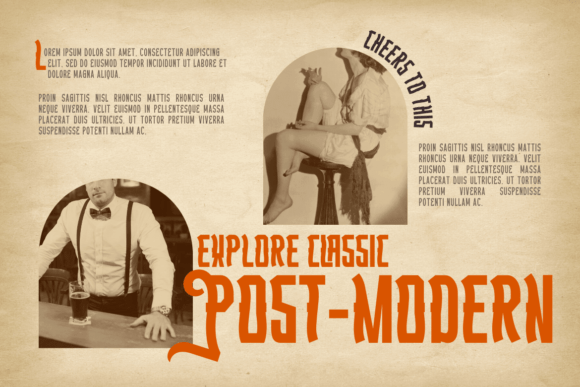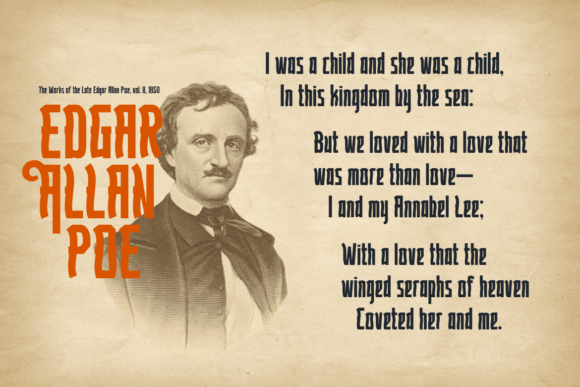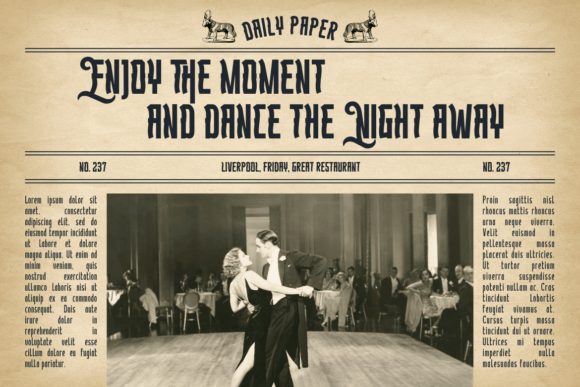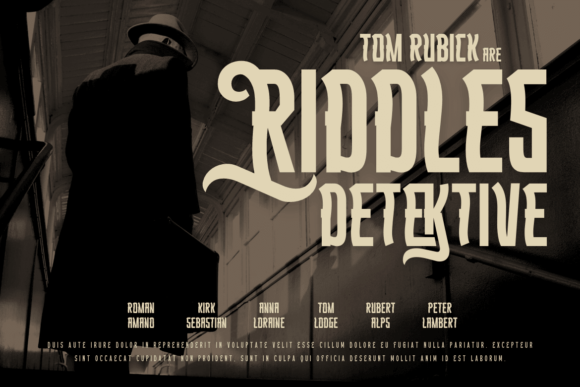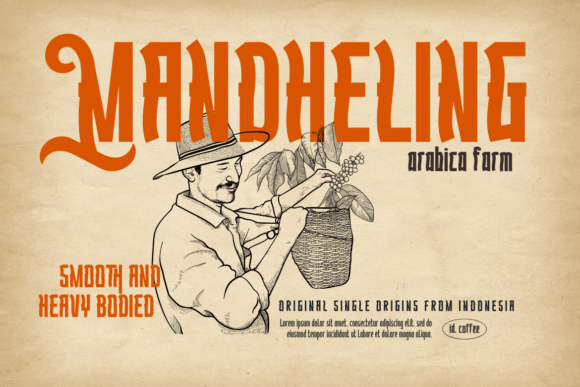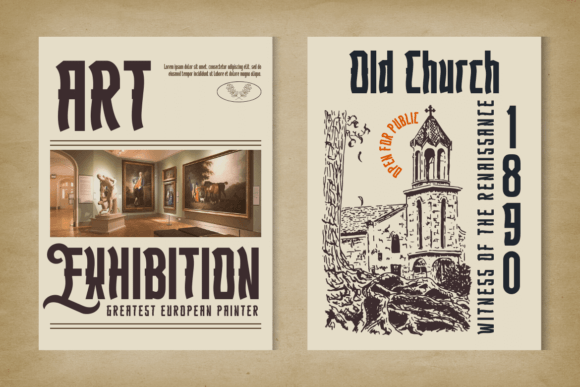
Introducing Fagumeh Font: Add a Touch of Vintage Charm to Your Designs
Are you tired of using the same old fonts in your design projects? Look no further than Fagumeh, a retro condensed font that’s sure to add a touch of vintage charm to your creations. With its unique and high form, Fagumeh is perfect for a wide range of design themes, from posters and packaging to logos and branding materials.
A Unique and Versatile Font
Fagumeh’s condensed design makes it ideal for use in a variety of contexts, from headlines and titles to body text and captions. Its stylistic sets and alternate characters offer a playful and distinct touch, allowing you to customize your text to suit your design needs. Whether you’re looking to create a bold and eye-catching statement or a more subtle and sophisticated look, Fagumeh has got you covered.
Playful and Distinctive Features
One of the standout features of Fagumeh is its unique ligatures, which add an extra touch of character to your text. Ligatures are special characters that combine two or more letters into a single glyph, creating a distinctive and eye-catching effect. Fagumeh’s ligatures are carefully crafted to add a playful and whimsical touch to your designs, making them perfect for use in creative projects such as posters, flyers, and social media graphics.
Stylistic Sets and Alternate Characters
In addition to its ligatures, Fagumeh also features a range of stylistic sets and alternate characters. These allow you to customize your text to suit your design needs, from changing the style of your letters to adding special characters and ornaments. With Fagumeh, you can create a unique and distinctive look that’s all your own.
Perfect for Vintage-Inspired Designs
Fagumeh’s vintage-inspired design makes it perfect for use in retro-themed projects. Whether you’re creating a poster for a vintage-inspired event or designing a logo for a brand that wants to evoke a sense of nostalgia, Fagumeh is the perfect choice. Its condensed design and stylistic sets make it ideal for use in headlines and titles, while its ligatures and alternate characters add a playful and distinctive touch.
Versatility and Legibility
One of the key benefits of Fagumeh is its versatility and legibility. Despite its condensed design, Fagumeh remains clear and easy to read, even at small sizes. This makes it perfect for use in a wide range of design projects, from business cards and brochures to posters and billboards.
Tips for Using Fagumeh in Your Designs
Here are a few tips for using Fagumeh in your designs:
- Use Fagumeh in headlines and titles to add a touch of vintage charm to your designs.
- Experiment with Fagumeh’s stylistic sets and alternate characters to create a unique and distinctive look.
- Use Fagumeh’s ligatures to add a playful and whimsical touch to your text.
- Pair Fagumeh with other fonts to create a bold and eye-catching contrast.
In conclusion, Fagumeh is a versatile and stylish font that’s perfect for adding a touch of vintage charm to your design projects. With its unique and high form, stylistic sets and alternate characters, and ligatures, Fagumeh offers a wide range of creative possibilities. Whether you’re a designer, craft, or DIY enthusiast, Fagumeh is the perfect choice for any project that needs a vintage flair and versatility.